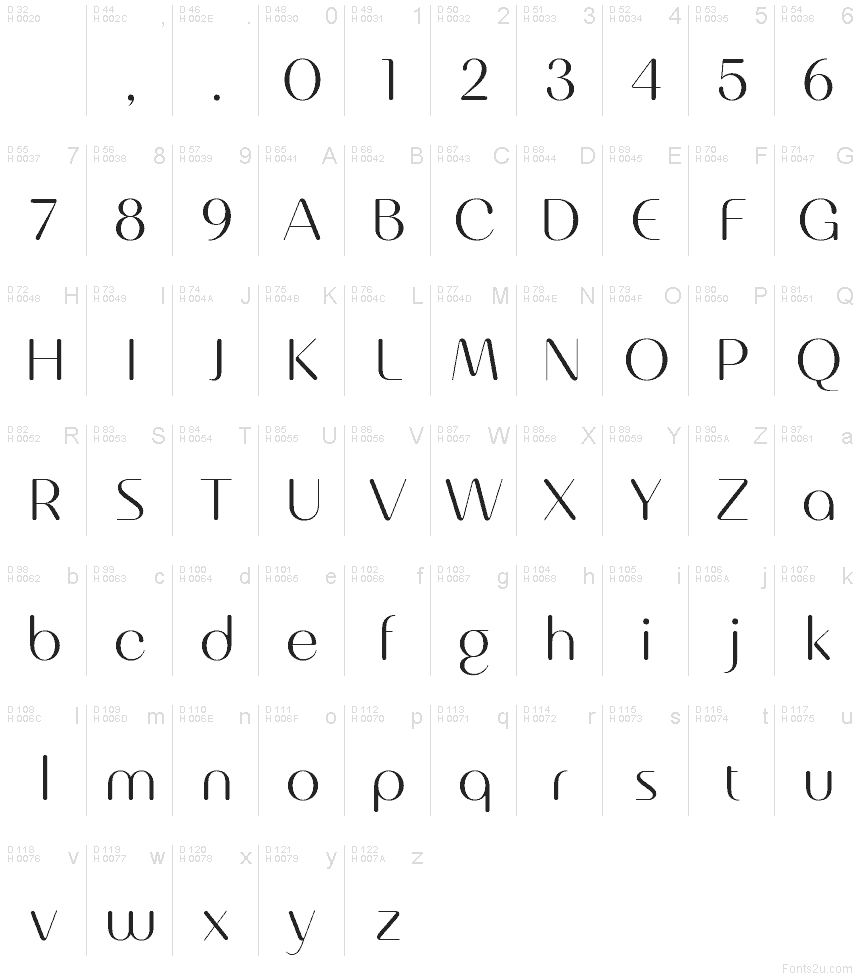
Nearo Rounded Light font by Digitype Studio is a free sans serif typeface shaped by soft, rounded terminals and an ultra-light skeleton that feels polished without going cold. Part of the Nearo family, its airy spacing and sculpted curves create a clean, modern rhythm-think whisper-thin strokes with gentle corners that keep headlines calm, crisp, and unmistakably contemporary.
Using Nearo Rounded Light, text reads sleek and approachable, which works beautifully for tech branding, product packaging, wellness posters, minimalist portfolios, editorial titles, and boutique logos. This free font shines on large sizes where its fine lines glow; pair it with a sturdy geometric sans for body copy to ground the elegance.